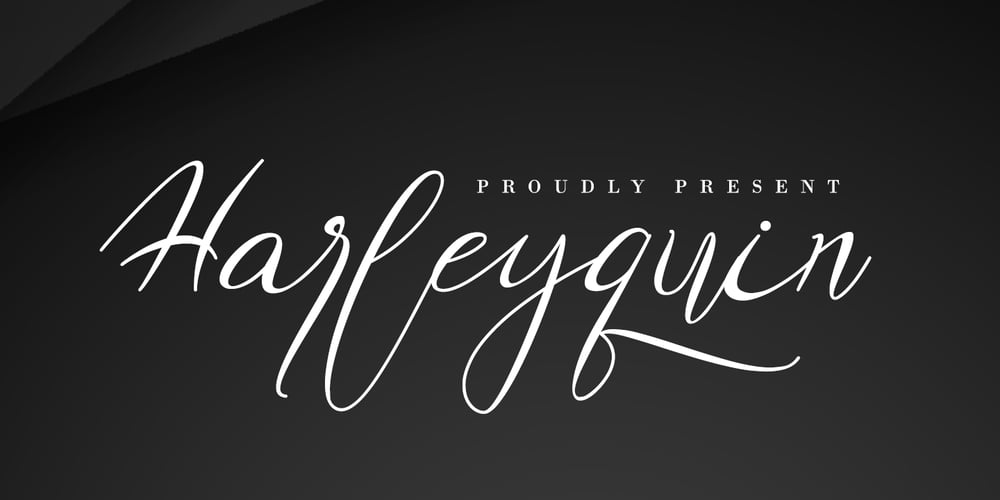
Harleyquin Font Family was designed by Thomas Aradea and published by Letterara. Harleyquin contains 2 styles and family package options. Sweet, charming and full of authenticity: Harleyquin is a one-of-a-kind typeface with a personal feel. Use titling to give different letter effects, making your project even more elegant!